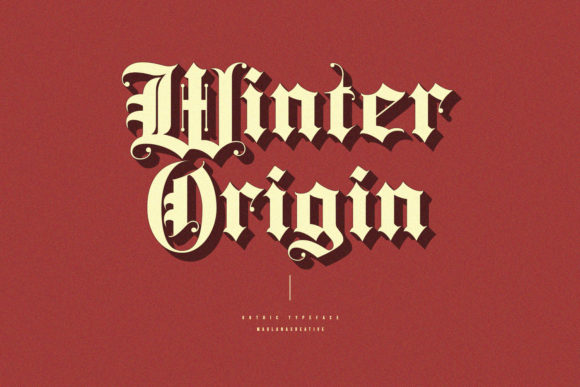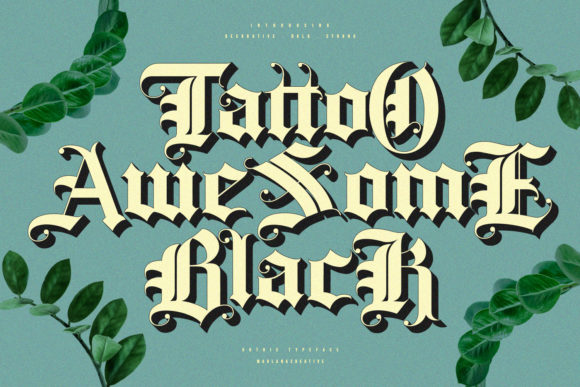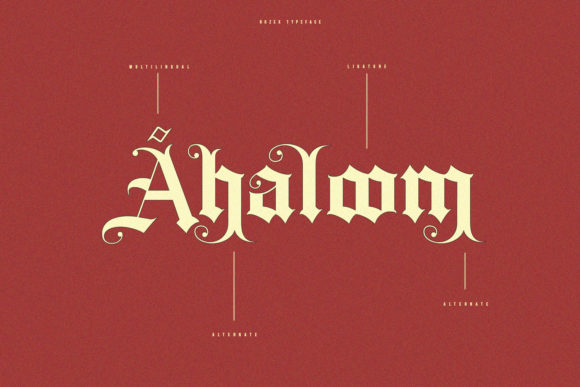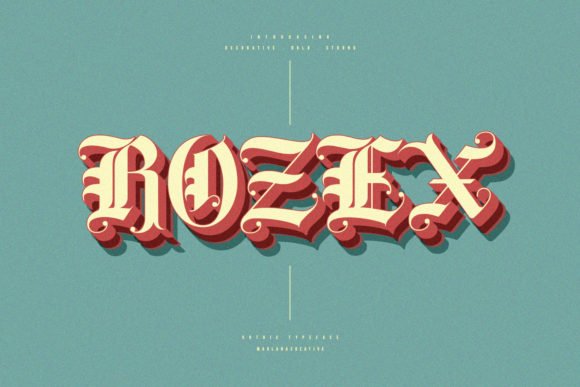
Introduction to Rozex Font
Rozex simplifies elegance into one truly outstanding blackletter font.
It will elevate a wide range of design projects to the highest level, be it branding, headings, wedding designs, invitations, signatures, logos, labels, and much more .
Why Choose Rozex Font?
Rozex Font offers exceptional quality and versatility, making it a valuable addition to your design toolkit. Whether you’re creating for personal projects or commercial use, Rozex Font delivers professional results.